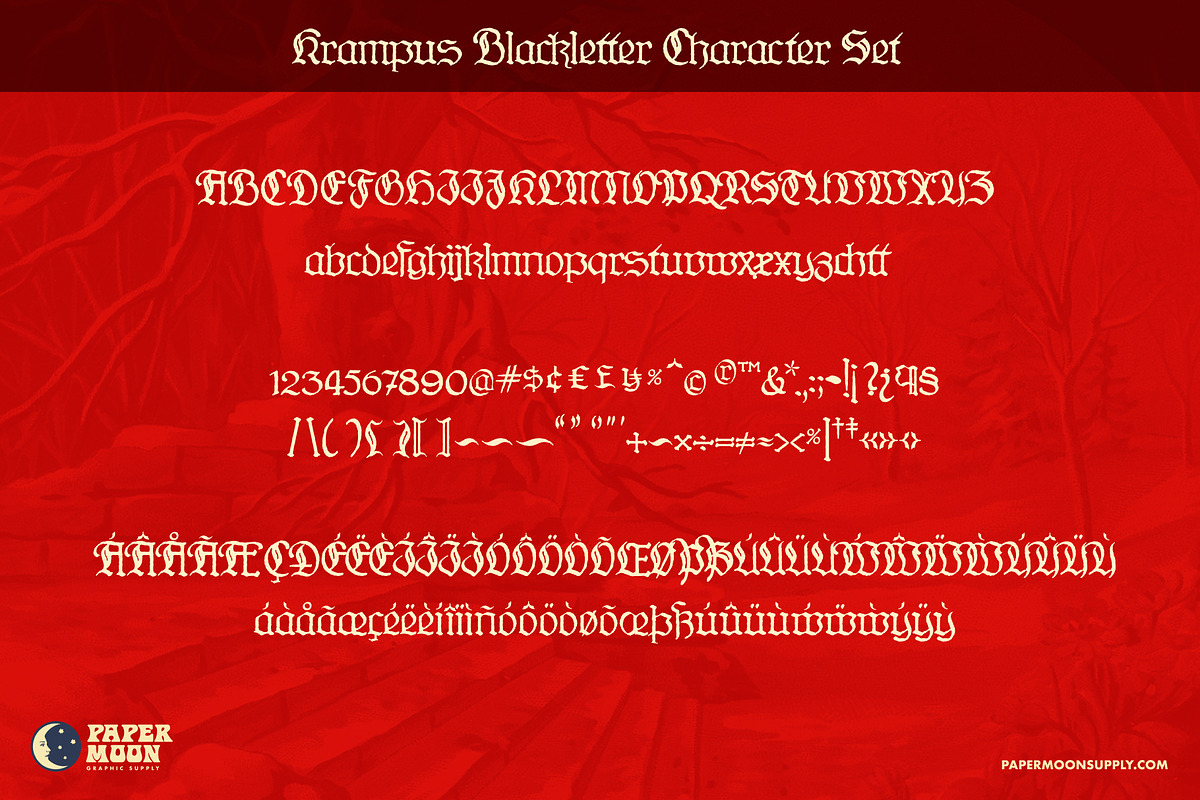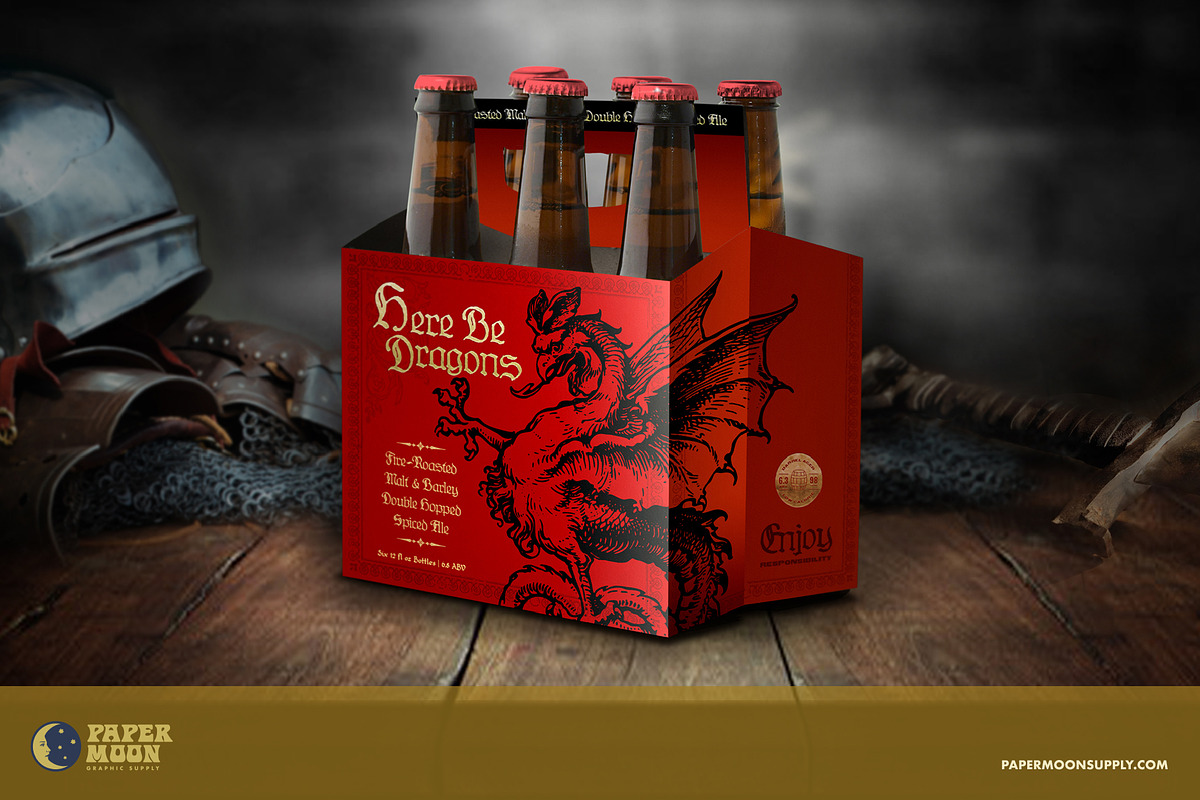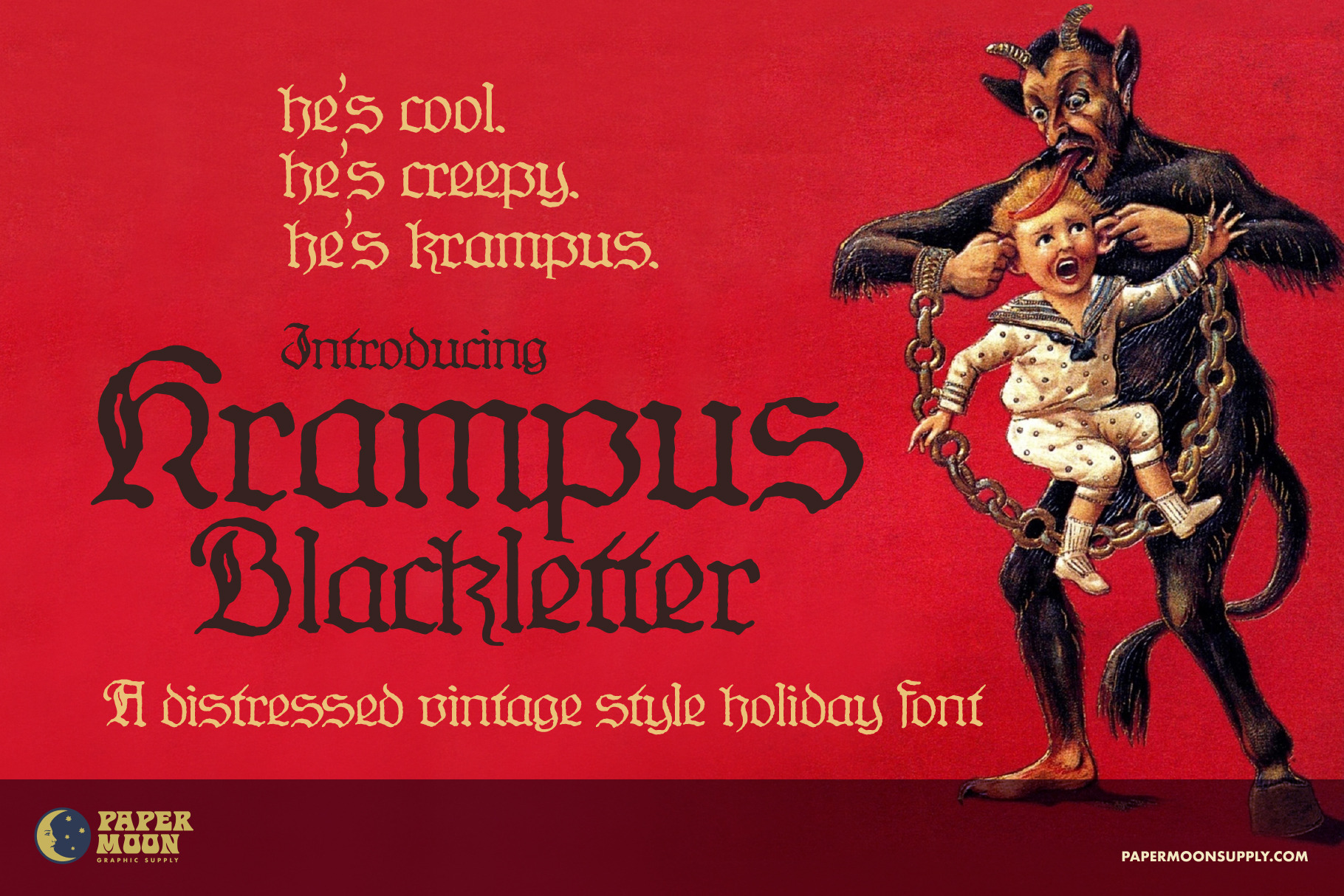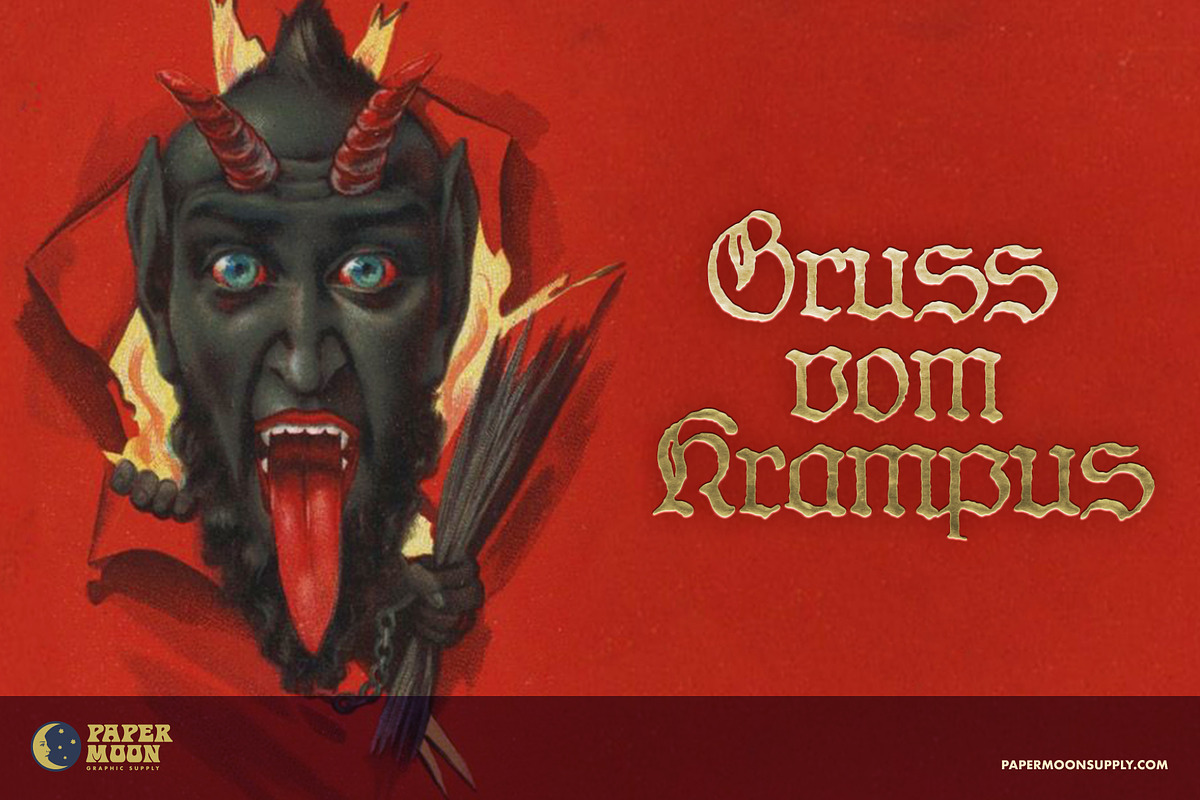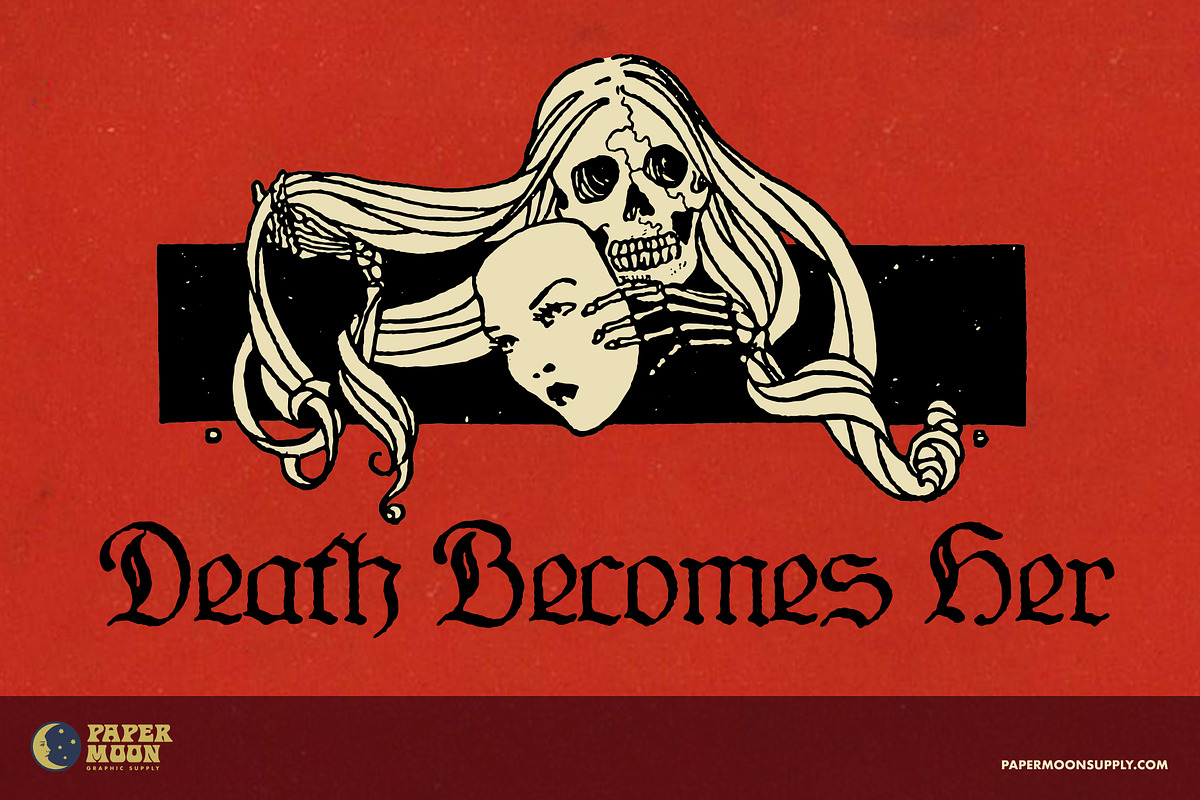
Krampus Blackletter Vintage Font
A new font based on vintage 19th century German Blackletter type.
Krampus Blackletter is a vintage blackletter font digitized from its 19th century type specimen. Missing and modern letters have been redrawn in the original style to make a complete alphabet for modern uses. Though designed to work with our holiday clip art collections, this font can be used for any project that needs a gothic or medieval look.
Krampus Blackletter is perfect for mockups, posters, branding, packaging, and social media. It's beautiful plain or used with smart object foil stamp effect in Photoshop. Look at the amazing creative sample slides for inspiration.
- Full character set
- Multi-lingual support
- Over 250 glyphs including alternate characters
- Highly-detailed “rough” vintage printed-style edges to match our vintage-style clip art and other historical printed images
Krampus Blackletter was developed by award-winning illustrator and designer Scott Banks. Until now, this font was part of Scott’s personal collection of design resources. Now you can get this typeface for your personal arsenal.